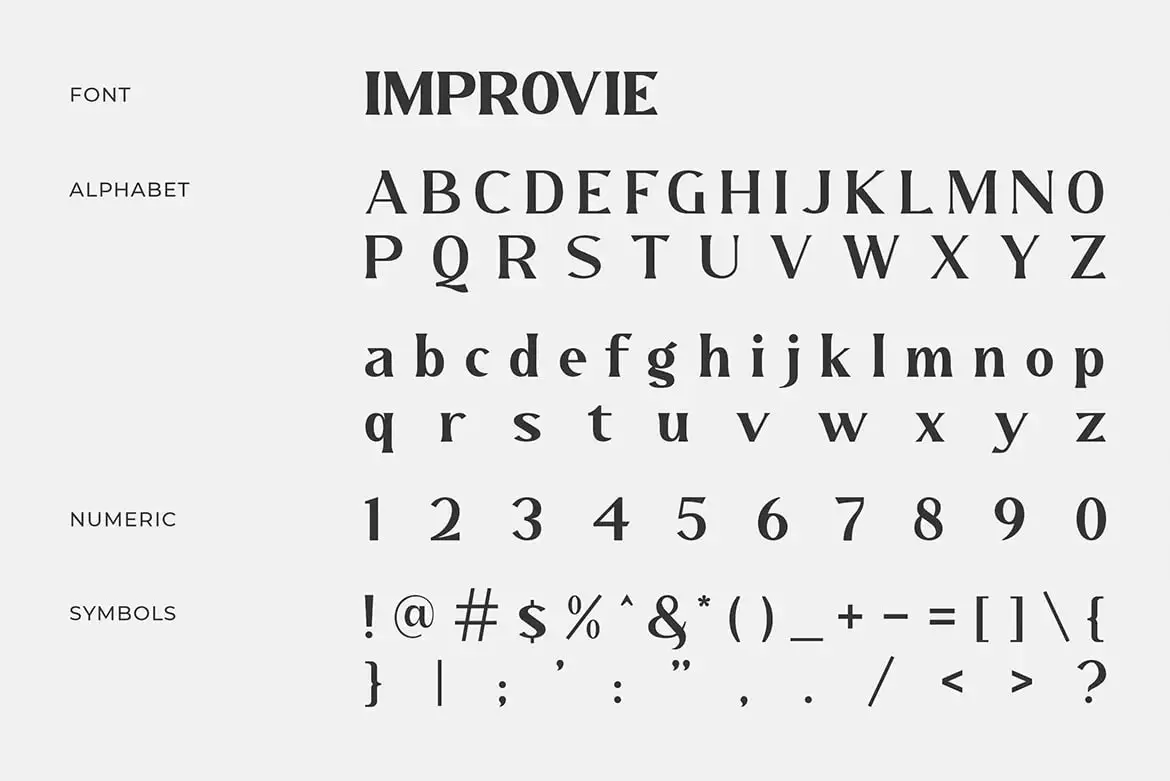
Creavora-Improvie Serif Font
The Creavora-Improvie Serif Font is a beautifully crafted typeface that combines elegance with modernity. Its unique design features a blend of traditional serif elements and contemporary styling, making it perfect for a variety of applications.
• Stylish serif design for a sophisticated look
• Supports a wide range of languages
Ideal for branding, logos, web design, print materials, and user interfaces, the Creavora-Improvie Serif Font adds a touch of sophistication to any project.